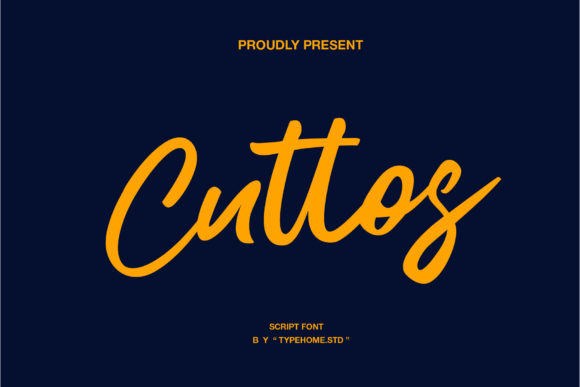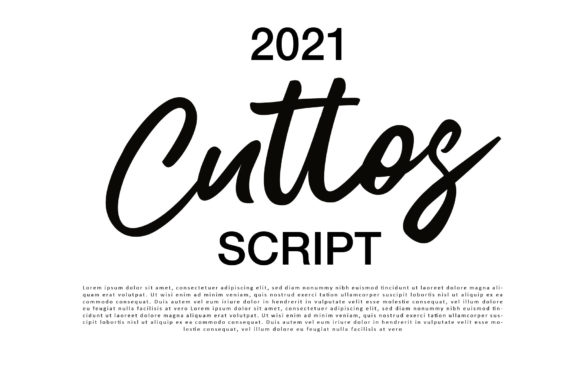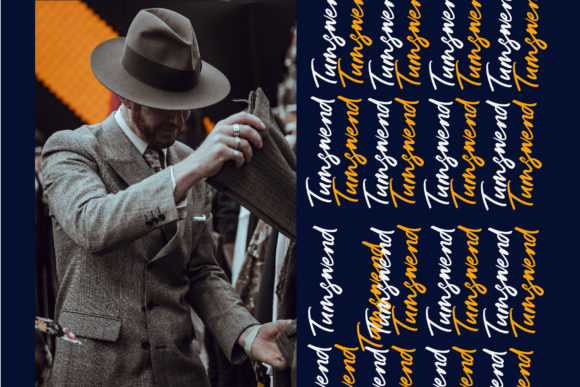
About Cuttos Font
Cuttos is a lovely, paint brushed script font, featuring a beautiful flow. Featuring characters that dance along the baseline, this font will add a luxury spark to any design project that you wish to create!